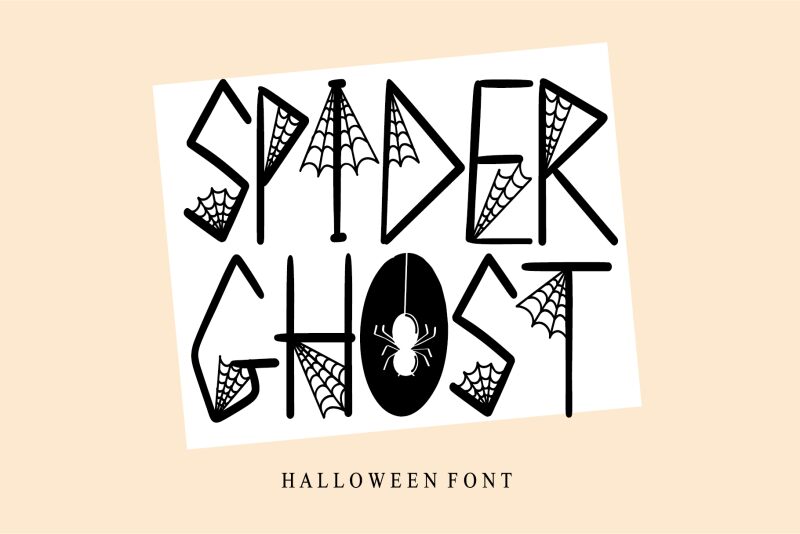
Spider Ghost, designed by Letterafa Studio, is a hauntingly captivating font that is perfect for all your holiday projects.
With its spooky halloween style and semi-light weight, it adds an eerie touch to invitations, party flyers, and haunted house signage. Its condensed width ensures maximum impact in limited space, making it ideal for social media graphics and website banners.
Let Spider Ghost weave its web of enchantment on your next project and bring your Halloween designs to life.